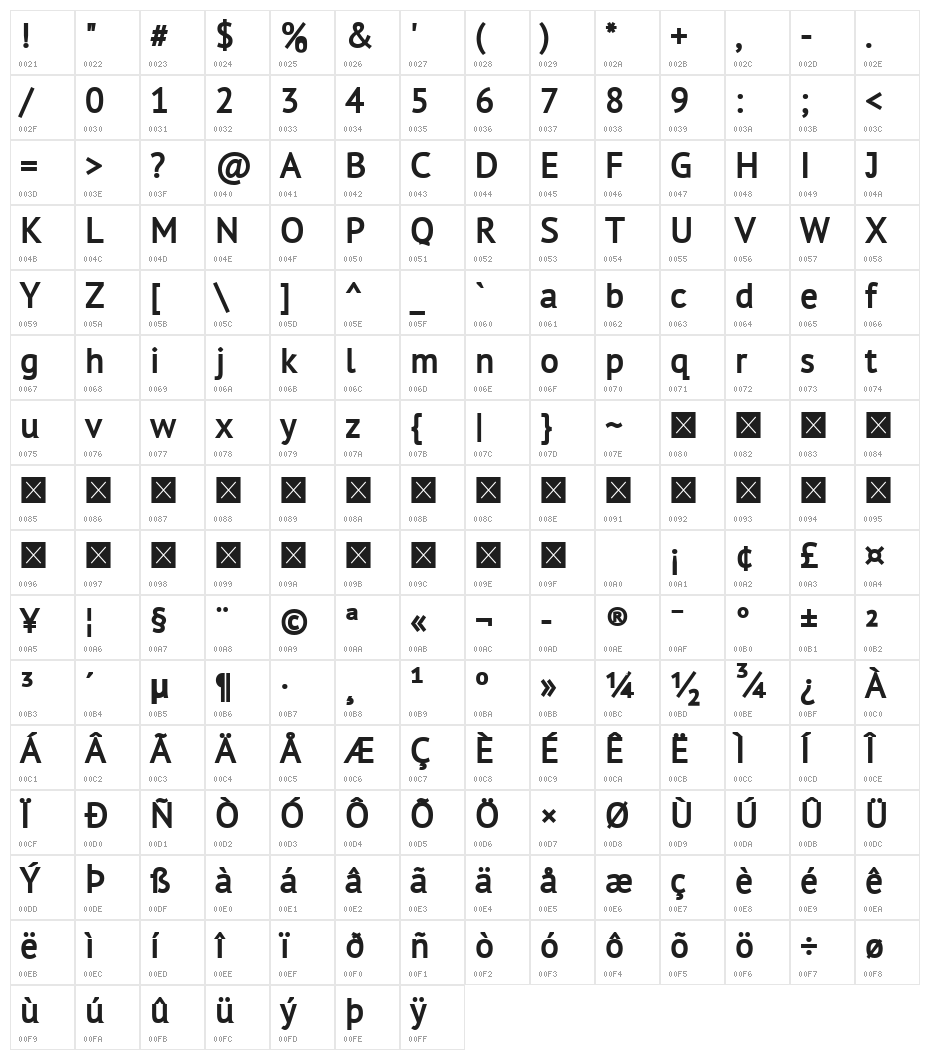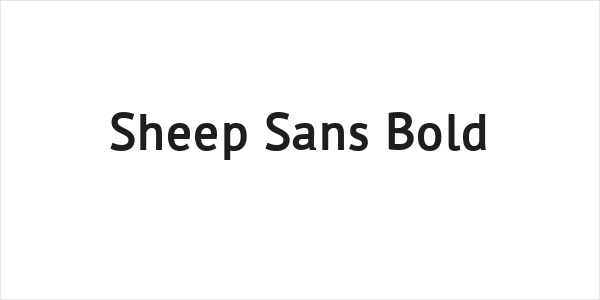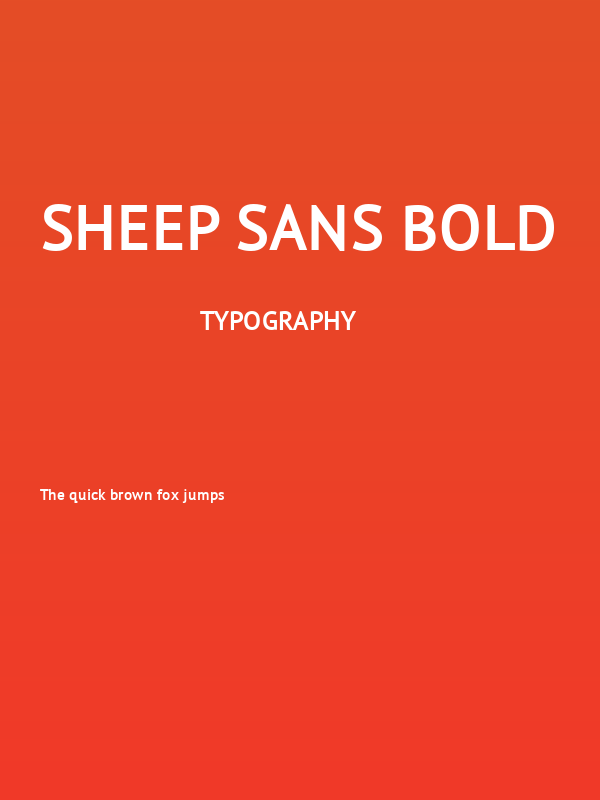
Sheep Sans Bold Font
Sheep Sans Bold Description
This font exhibits a clean and modern sans-serif style, characterized by its bold and uniform stroke weight. The characters are well-proportioned, with a consistent height and width that ensures readability across various sizes. The uppercase letters are strong and commanding, while the lowercase letters maintain a friendly and approachable appearance. The numerals are clear and distinct, making them suitable for both display and text settings. Special characters are designed with the same attention to detail, ensuring they integrate seamlessly with the rest of the typeface. Overall, this font is versatile and can be used in a variety of design contexts.
Use CaseHeadlines, Logos, Digital Interfaces
Proposed ProjectsIdeal for branding, advertising, headlines, and digital interfaces where clarity and impact are essential.